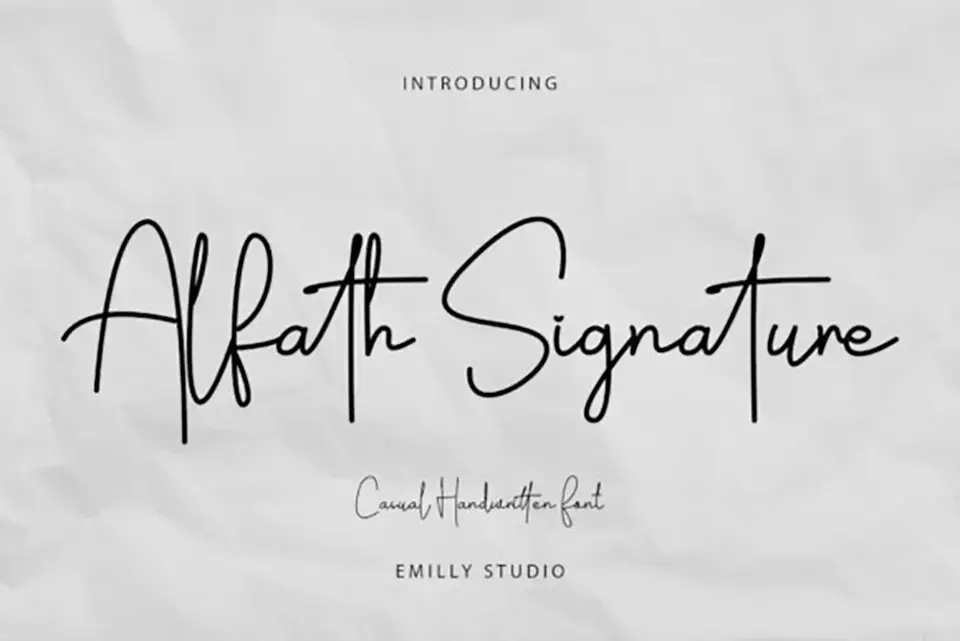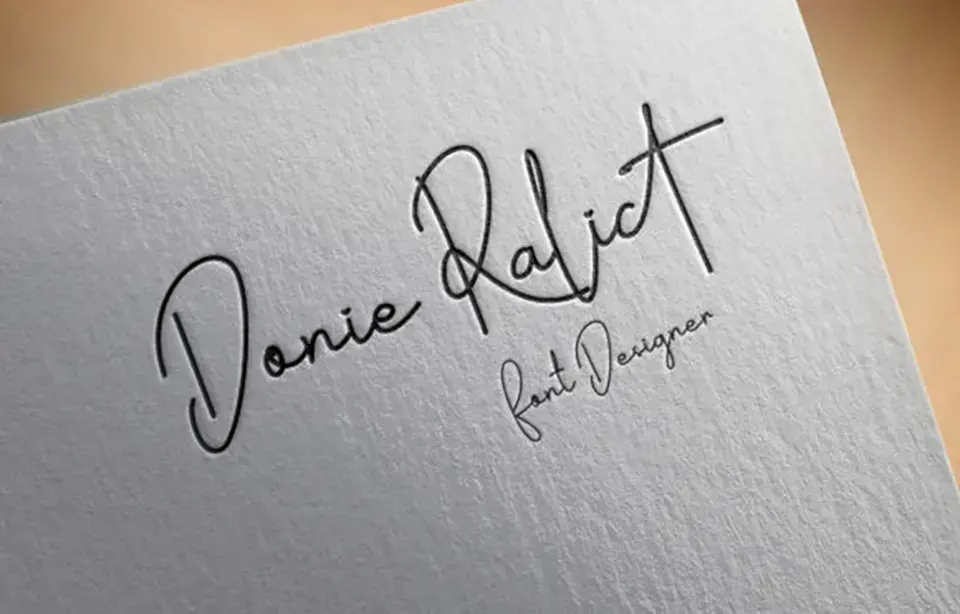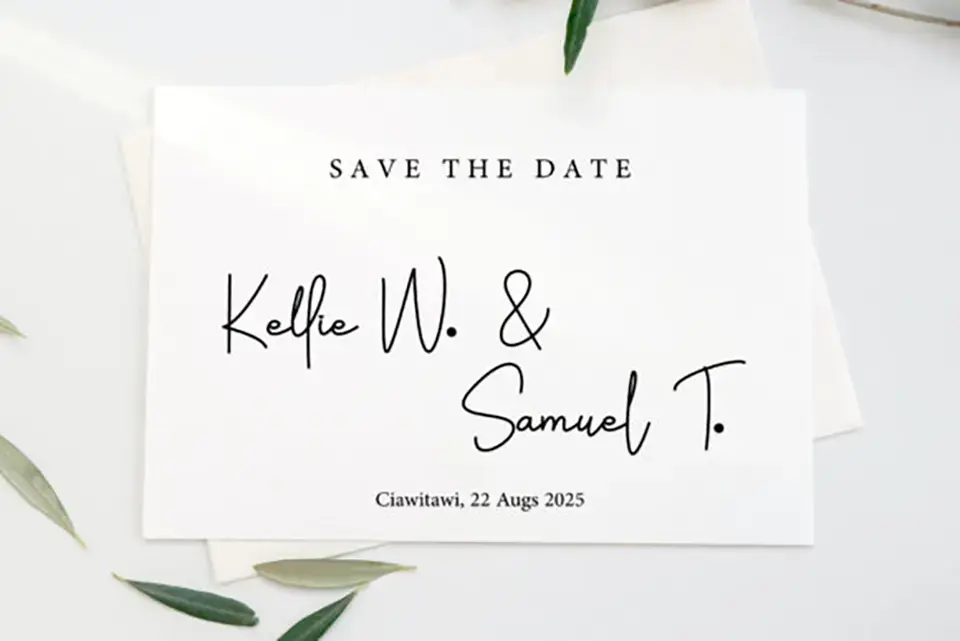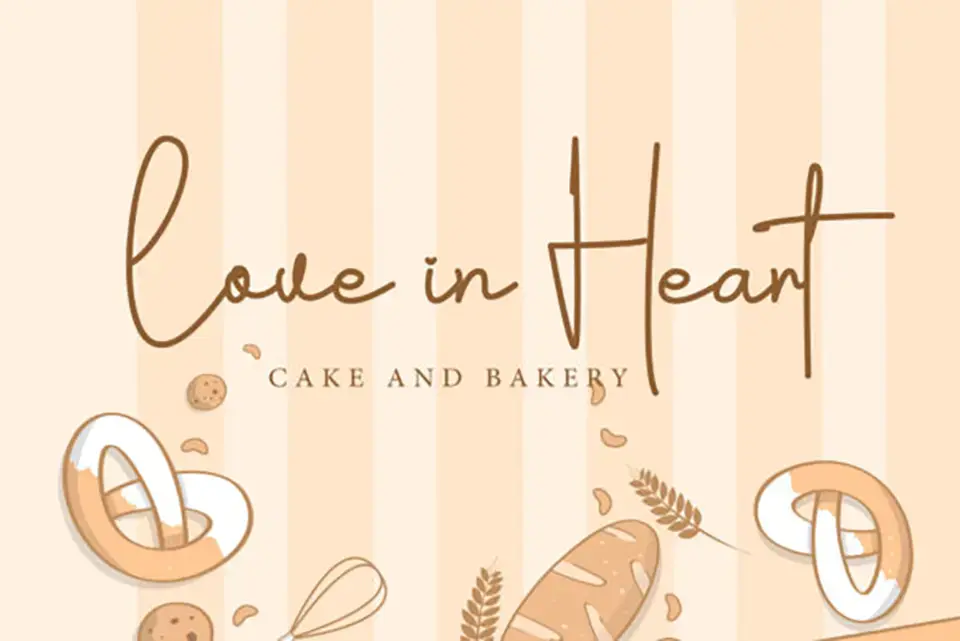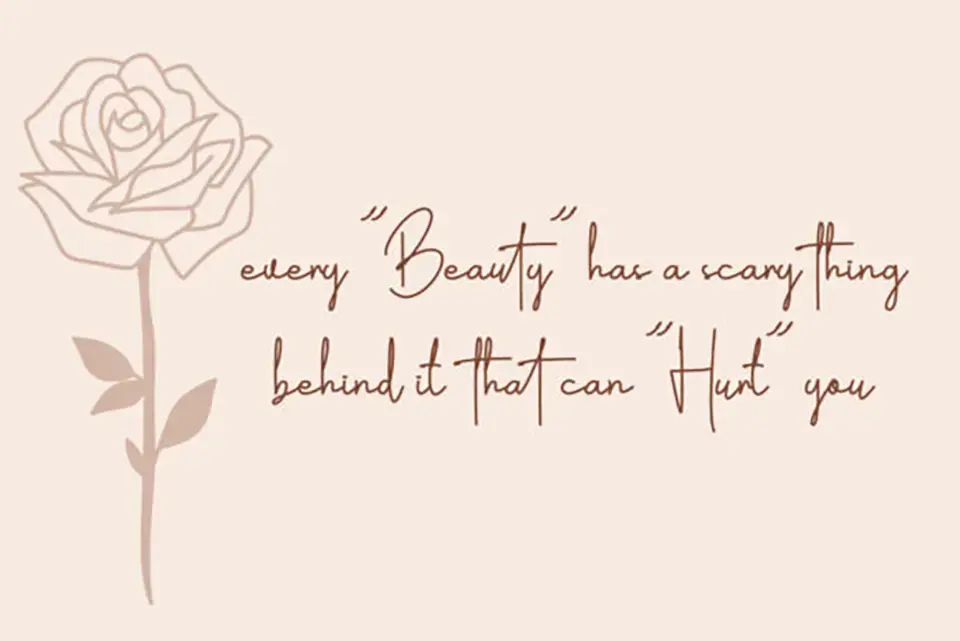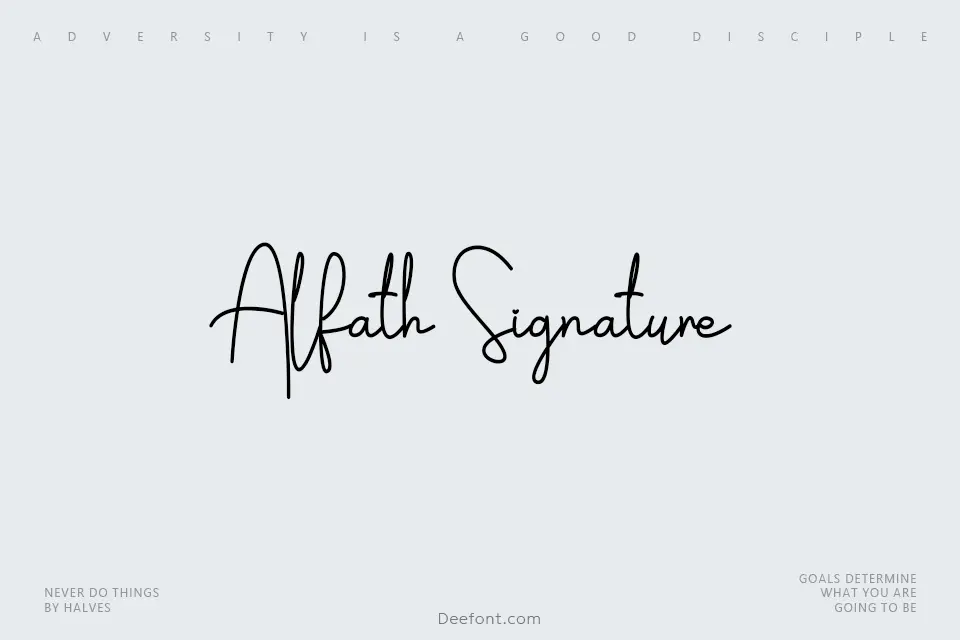
Alfath Signature Font
Alfath Signature Font is a graceful handwritten script with fluid, pen-inspired strokes and natural ligatures that mimic an authentic personal signature. Its delicate curves and elegant flow suit logos, wedding invitations, name cards, packaging, quotes and social media graphics that need a refined, modern personality.